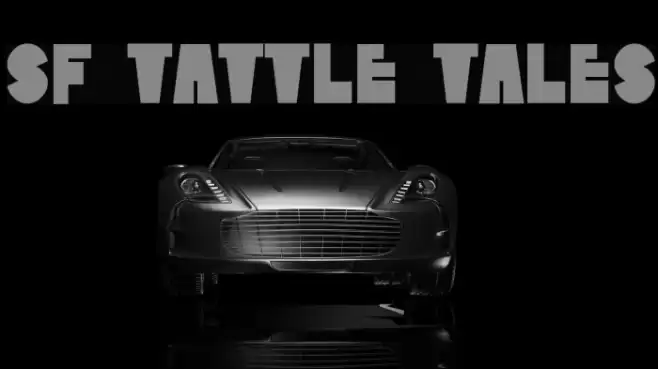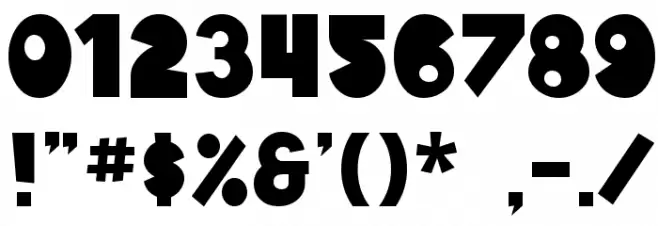
SF Tattle Tales Font
SF Tattle Tales Description
This font features bold, geometric shapes with a playful and quirky style. The letters are constructed with thick strokes and a strong presence, making them ideal for attention-grabbing designs. The uppercase letters are particularly striking, with unique angles and curves that add a sense of movement and energy. The numbers and special characters maintain this bold aesthetic, ensuring consistency across all elements. The overall design is reminiscent of retro or vintage styles, yet it maintains a modern appeal through its clean lines and simplicity.
A bold, geometric font with a playful and quirky style from Decorative fonts.
- Proposed Projects: Ideal for posters, headlines, logos, and any design requiring a bold statement.
- Overall Style: Retro, Modern